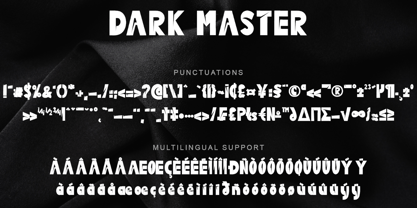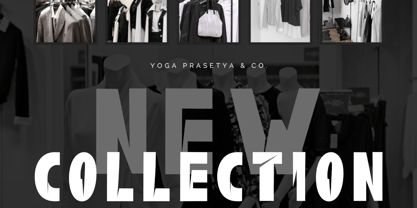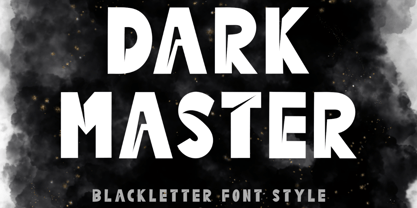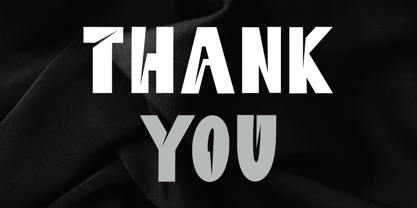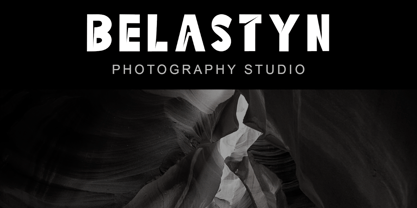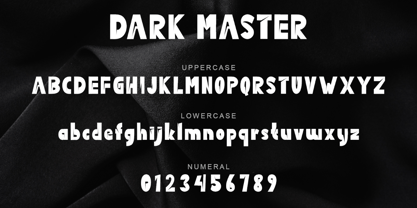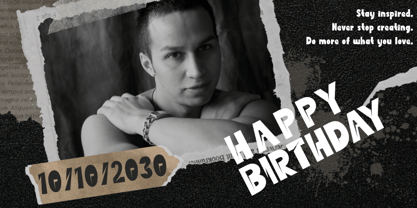
Dark Master
by Yoga Letter
The Dark Master Font Family was designed by Isroni Yoga Prasetya and published by Yoga Letter. Dark Master contains 1 styles. More about this family
"Dark Master" is an elegant and modern blackletter font. This font is equipped with uppercase, lowercase, numerals, punctuations and multilingual support. Very suitable for posters, prints, banners, branding, stickers, logos, movie titles, book titles, vacations, adventures, fashion, photography and others.
Designers: Isroni Yoga Prasetya
Foundry: Yoga Letter